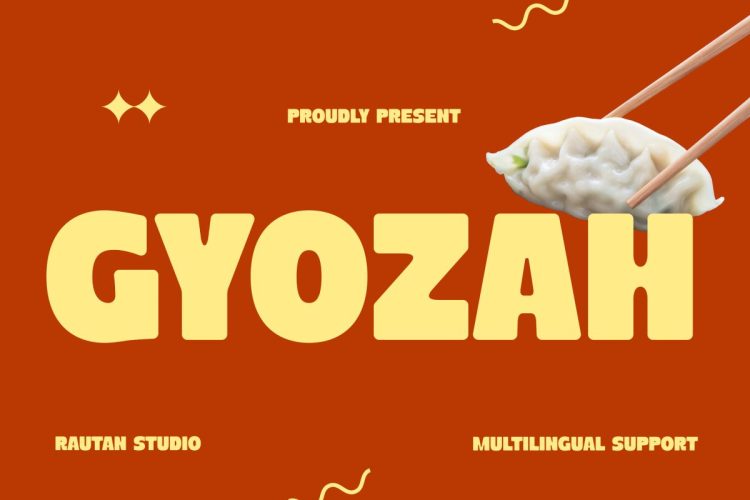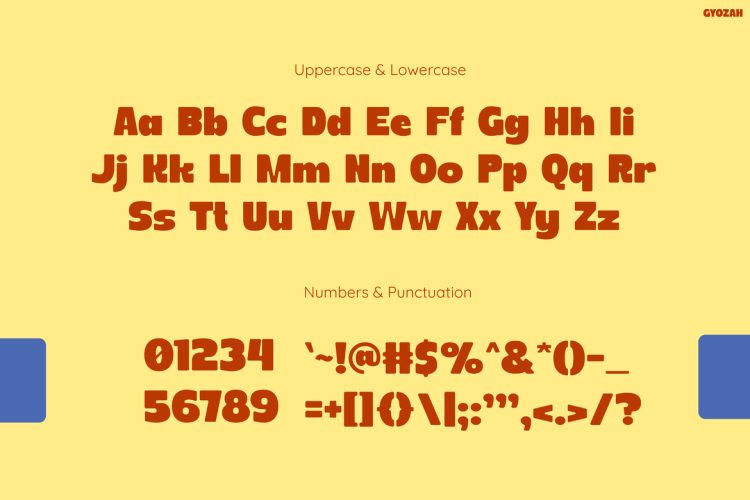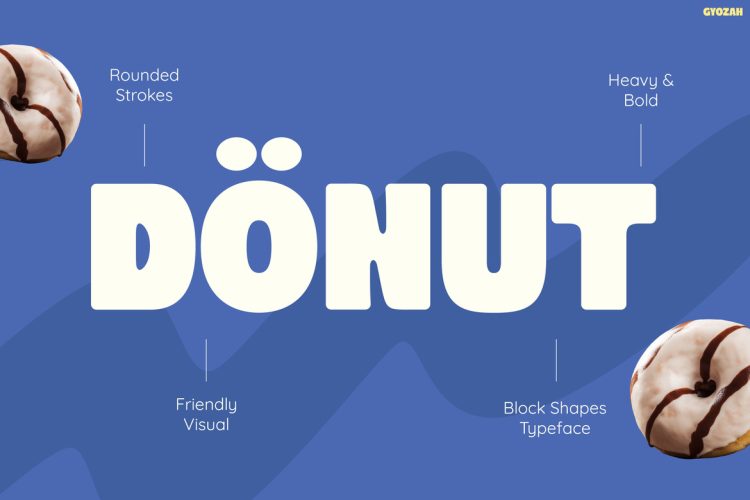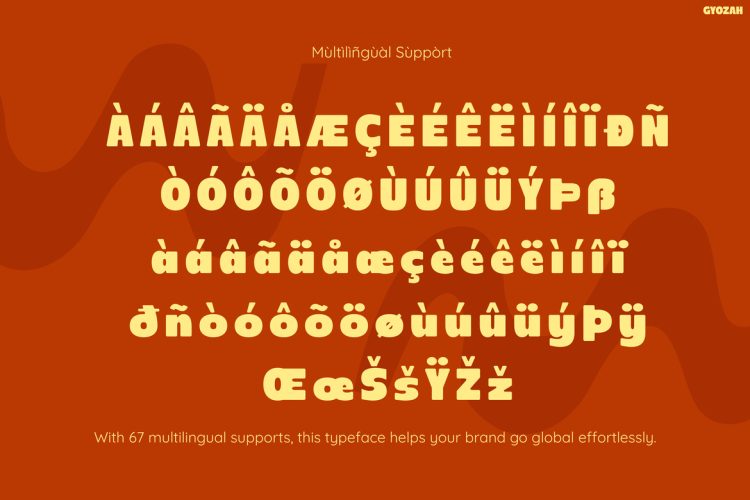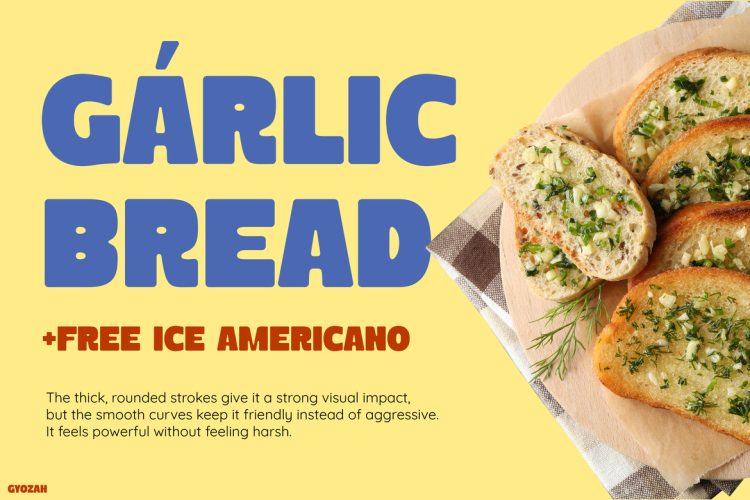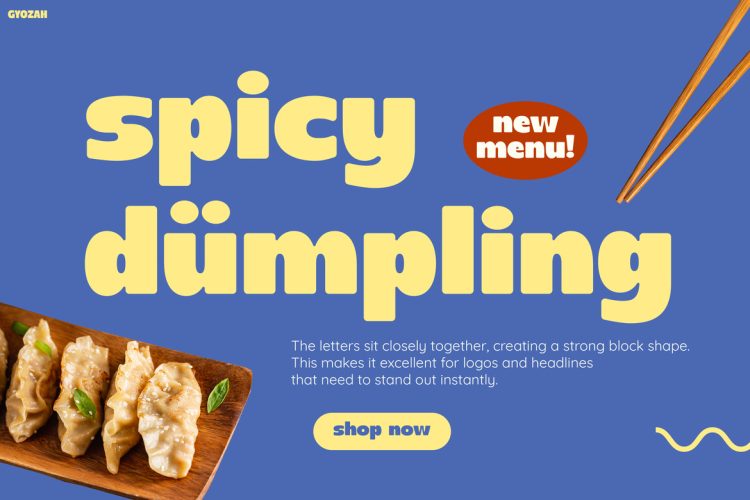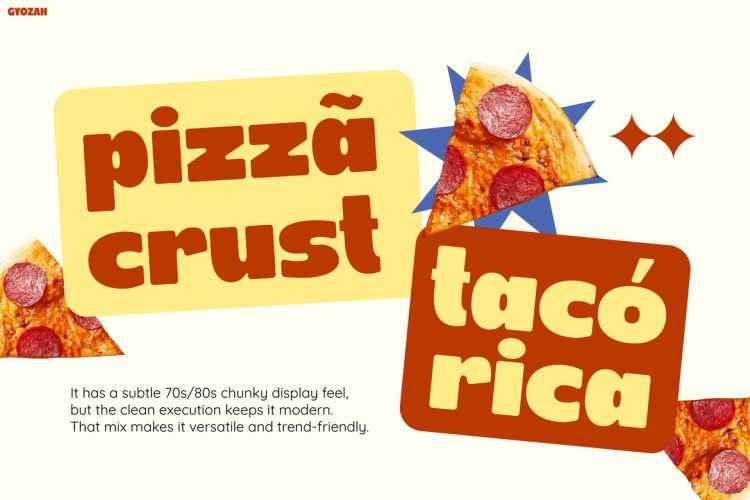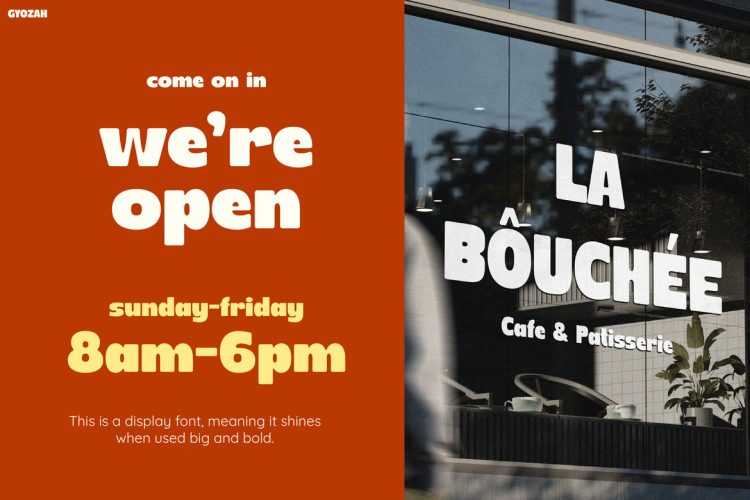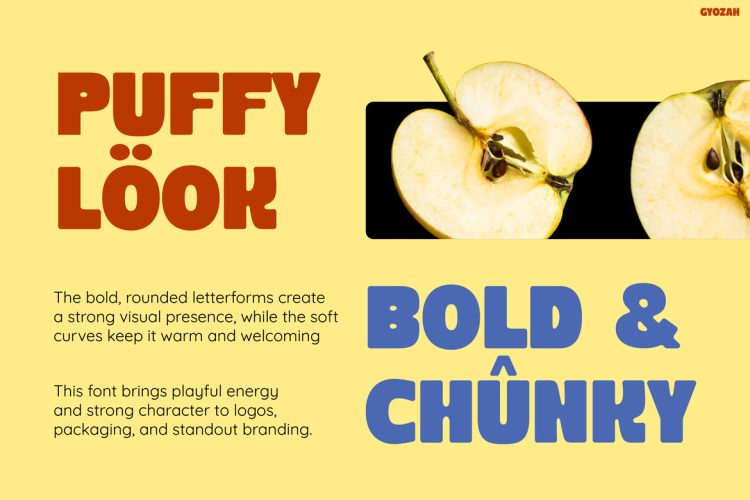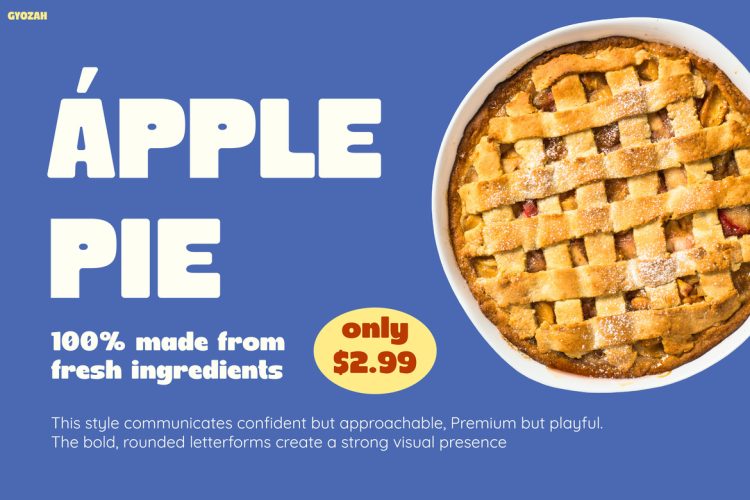
GYOZAH โ Bold Retro Font with Tasty Visual Flavor
Retro Font GYOZAH serves a bold and delicious retro aesthetic with its chunky shapes, soft curves, and eye-catching vintage vibe. It blends playful typography with a strong visual presence, making every word feel warm, friendly, and full of character. Moreover, its rounded and slightly puffy letterforms create a nostalgic look inspired by classic food branding and retro packaging. This unique style not only grabs attention but also keeps high readability, so your message stays clear and impactful. In addition, GYOZAH brings a fun and inviting tone that instantly connects with audiences. With support for 67 languages, it allows you to deliver that tasty retro feel across global markets.
GYOZAH is a bold retro display font designed to make your visuals pop with personality. Its thick, rounded structure creates a strong and confident look, while still feeling soft and approachable. Furthermore, the playful shapes add a sense of joy and creativity, making it perfect for vibrant and engaging designs. The font works beautifully in both digital and print formats, so you can use it across multiple platforms. Whether you design food branding, posters, or promotional content, GYOZAH helps your work stand out with a unique retro flavor.
Retro Font GYOZAH is perfect for designers, food brands, and creative businesses that want a fun and nostalgic identity. It works great for restaurant menus, food packaging, cafรฉ branding, posters, social media content, and advertising campaigns. In addition, it fits snack brands, bakery visuals, and street food concepts. Not only does it attract attention, but it also builds a warm and memorable brand experience that customers love.